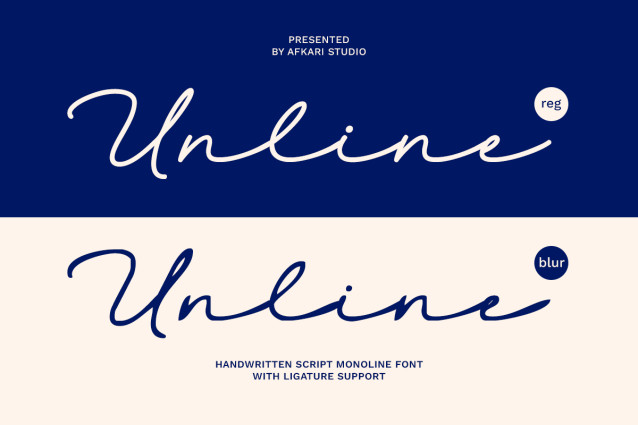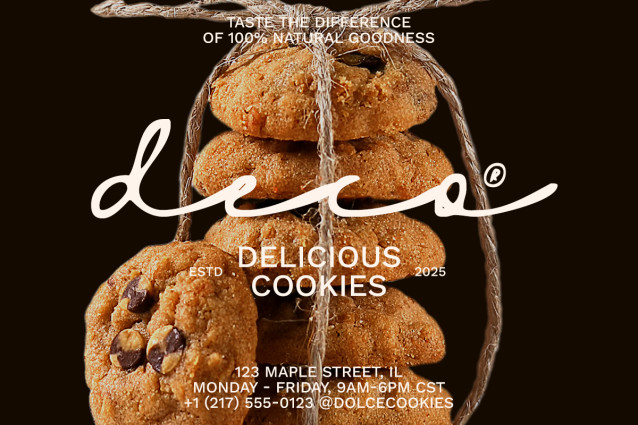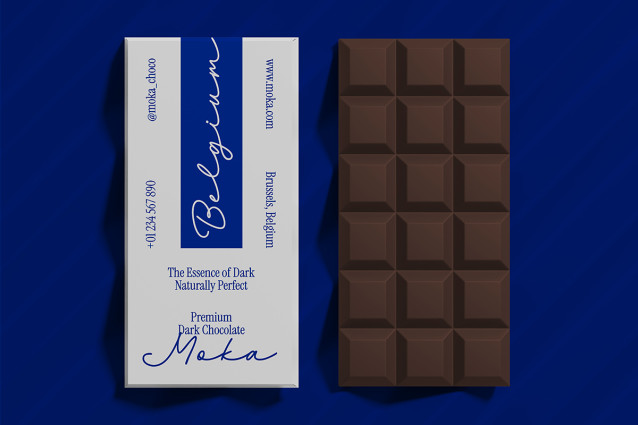
Unline Script Font
Unline Script Font – Handwritten Script Monoline Font is a smooth, simple, and elegant typeface inspired by natural handwriting and minimal line work. With a consistent stroke weight and graceful curves, Unline brings a clean, personal touch to your designs—making it perfect for everything from logos and branding to social media posts and wedding stationery.